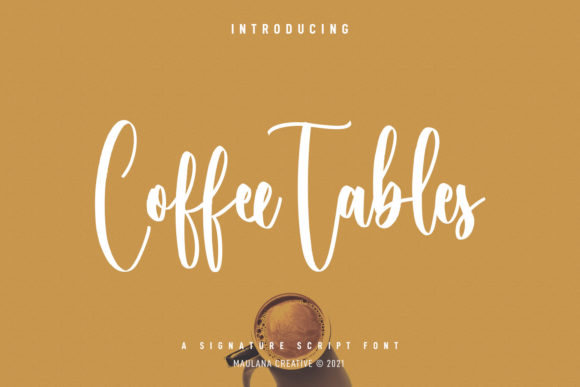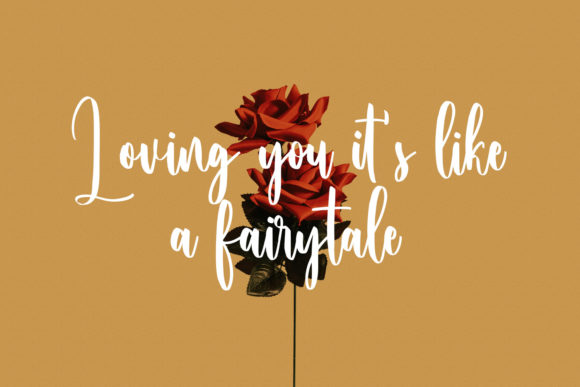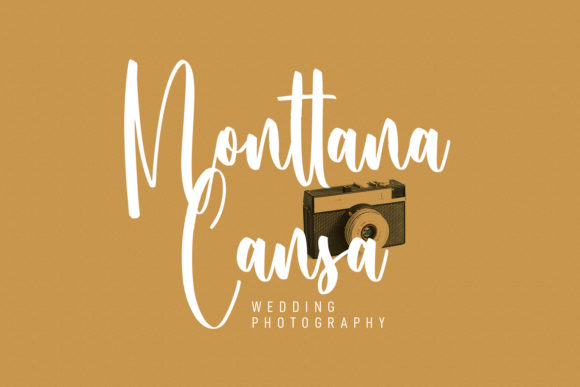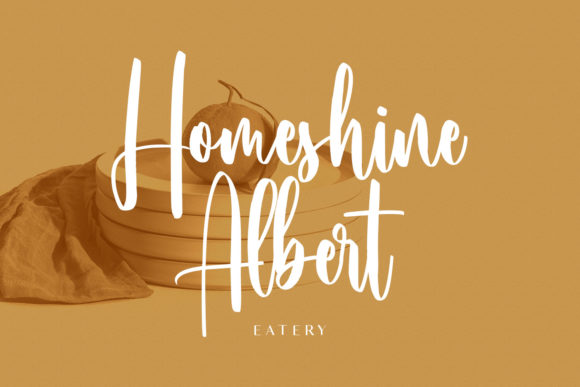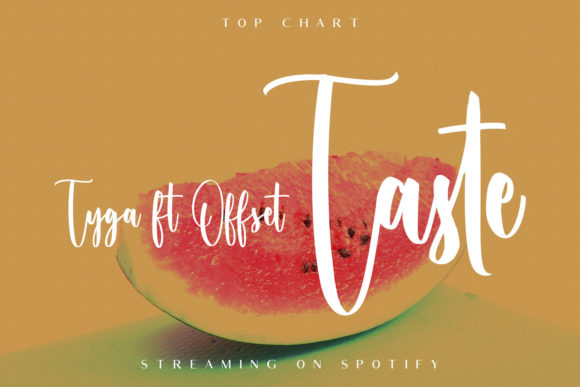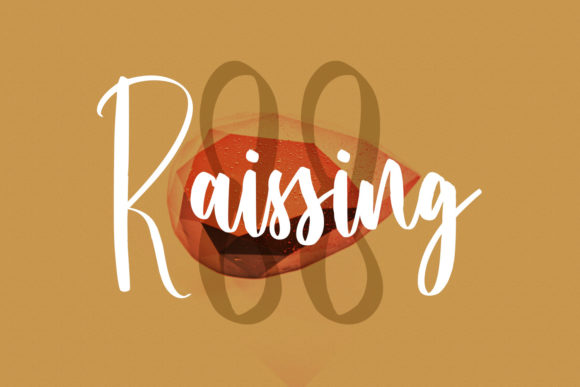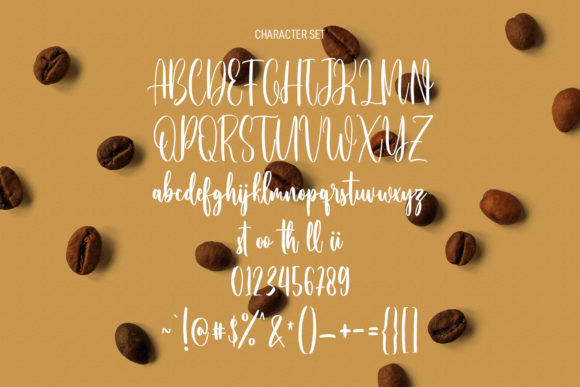
Coffee Tables Script Font
About Coffee Tables Script Font
Coffee Tables Script is a flowing handwritten font, masterfully designed to become a true favorite. It maintains its classy calligraphic influences while feeling contemporary and fresh. Fall in love with it and bring your projects to the highest levels!